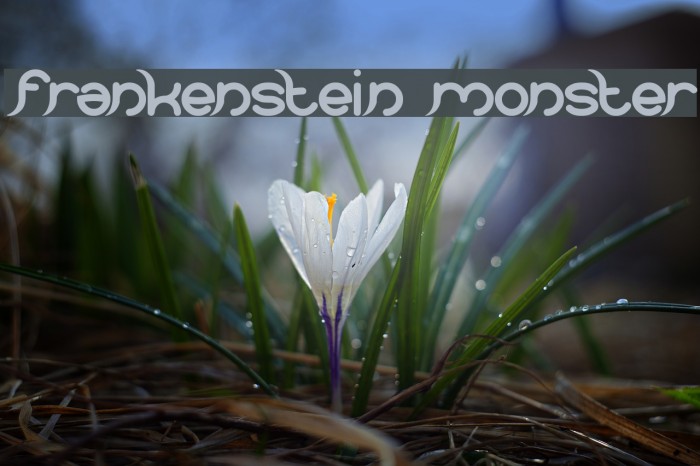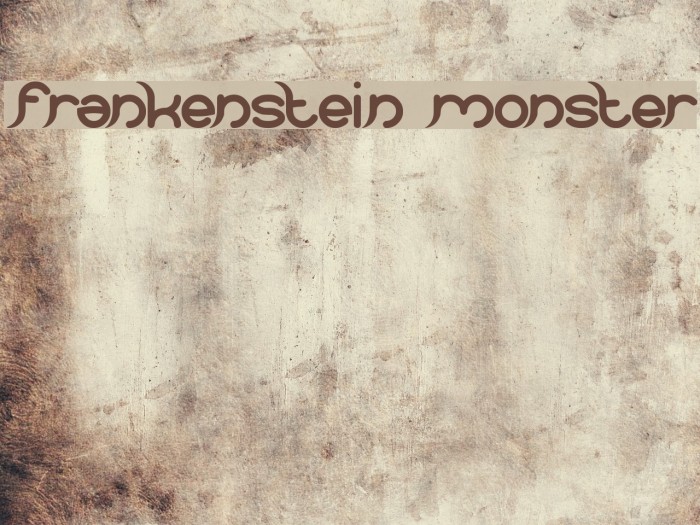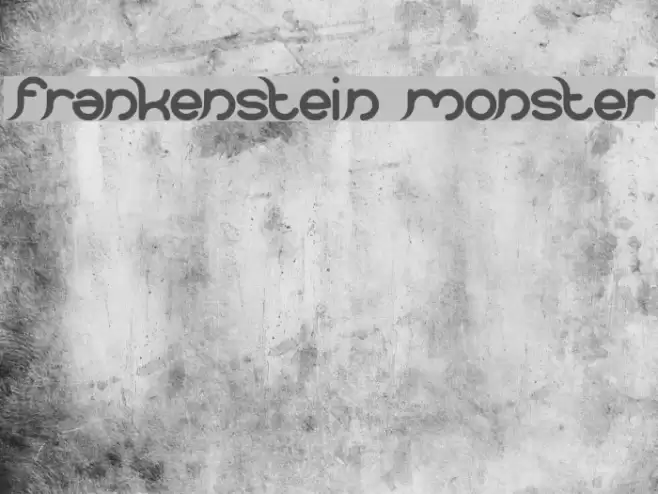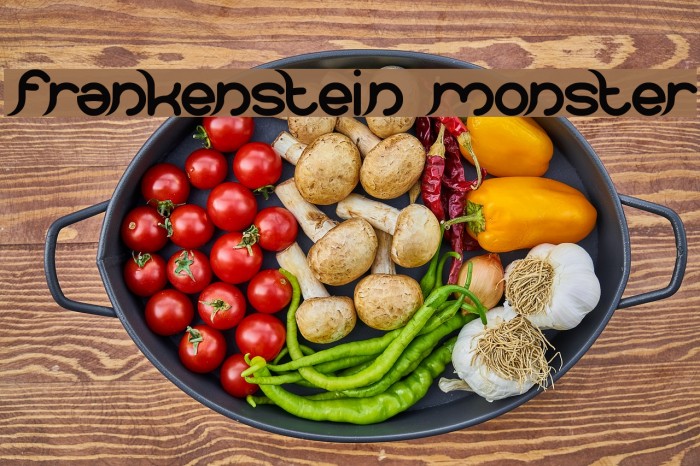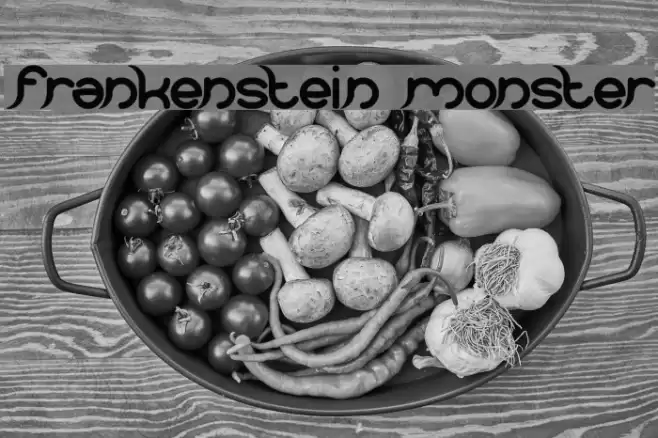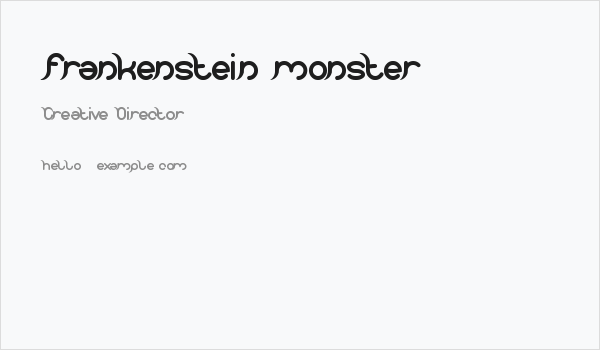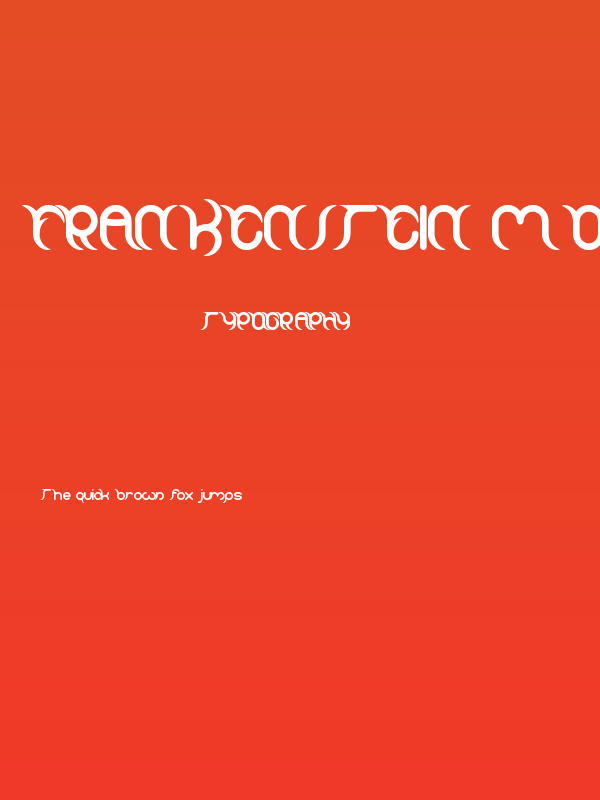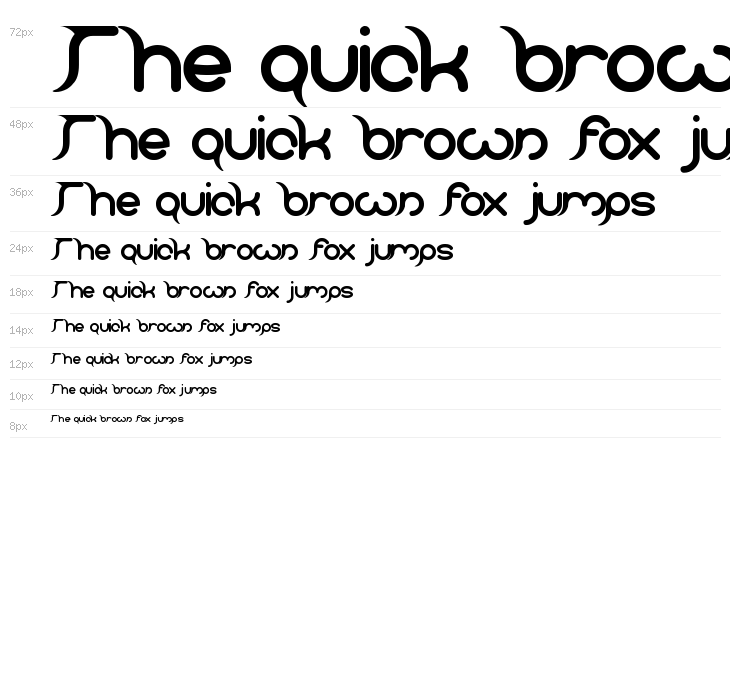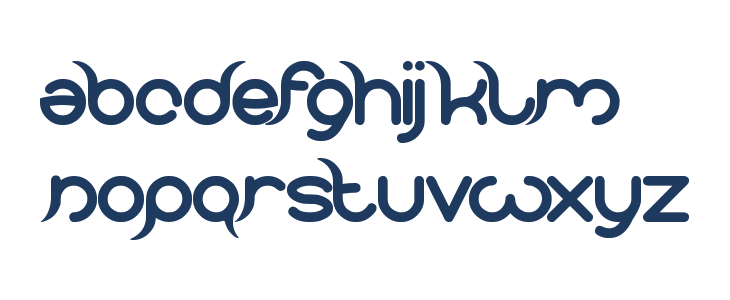
frankenstein monster Font
frankenstein monster Description
This font features a unique and bold design with a decorative flair. Each character is crafted with a combination of smooth curves and sharp points, creating a striking visual contrast. The uppercase letters are particularly distinctive, with exaggerated serifs that give them a dramatic appearance. The lowercase letters maintain the same stylistic elements, ensuring consistency throughout the typeface. The numbers and special characters are designed to match the overall aesthetic, making this font suitable for creative and eye-catching designs.
| Proposed Projects | Ideal for Halloween-themed designs, posters, album covers, and branding that requires a bold and unique look. |